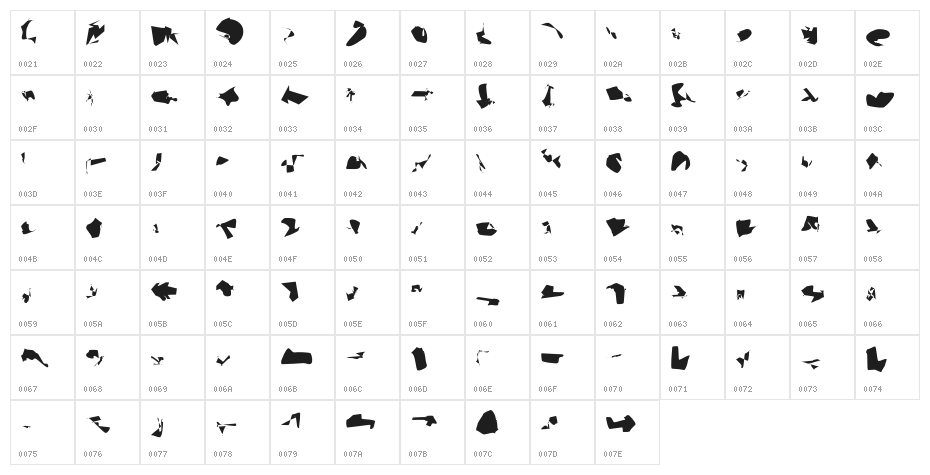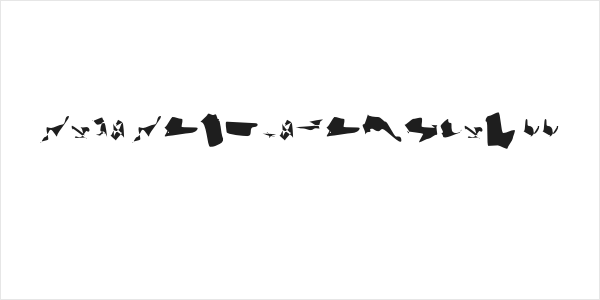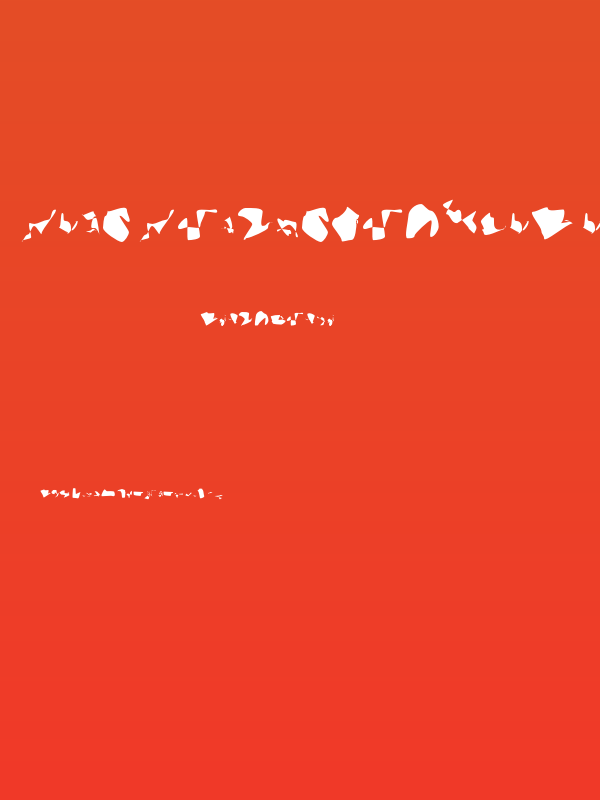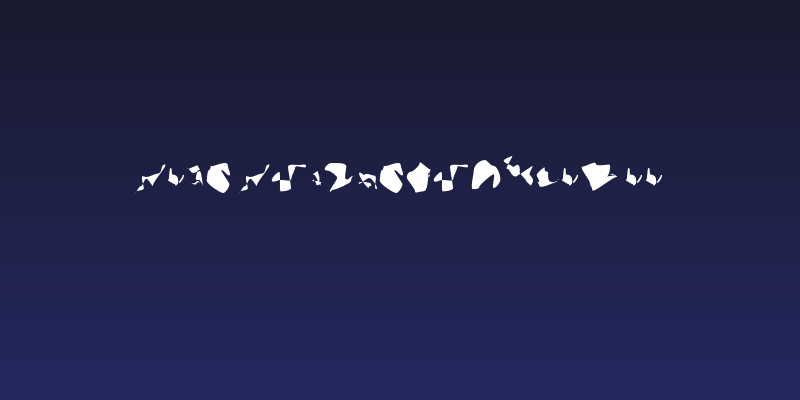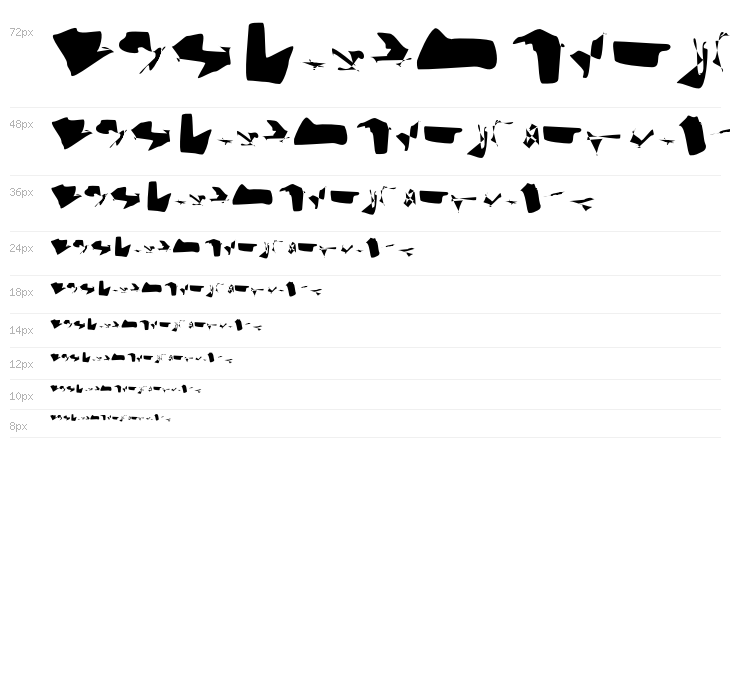
CiSf CamouflageKit II Font
CiSf CamouflageKit II Description
This font features a highly abstract and fragmented design, resembling a camouflage pattern. Each character is composed of irregular, jagged shapes that create a sense of movement and disruption. The overall appearance is chaotic and artistic, making it stand out as a unique and unconventional choice. The font lacks traditional structure, with each letter appearing as a series of disjointed pieces that come together to form a cohesive whole. This style is reminiscent of modern art, where form and function blend to create an expressive visual language.
| Use Case | Logos, Artistic displays, Posters |
| Proposed Projects | Ideal for artistic projects, modern art displays, or any design requiring a bold, unconventional typeface. |